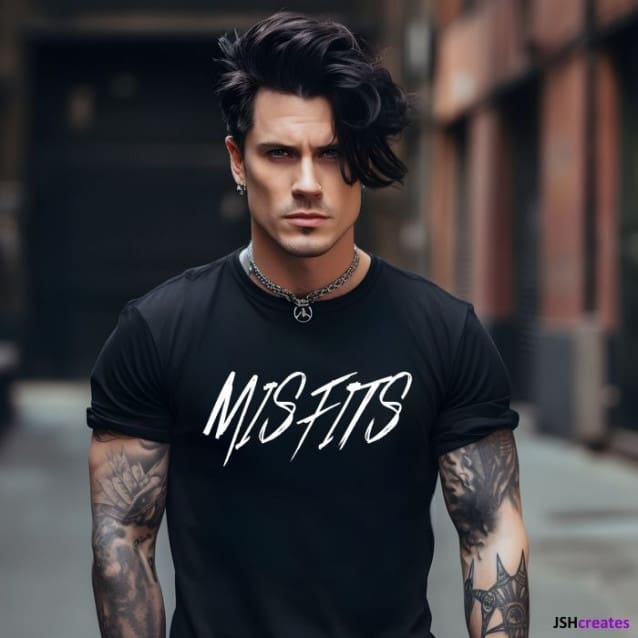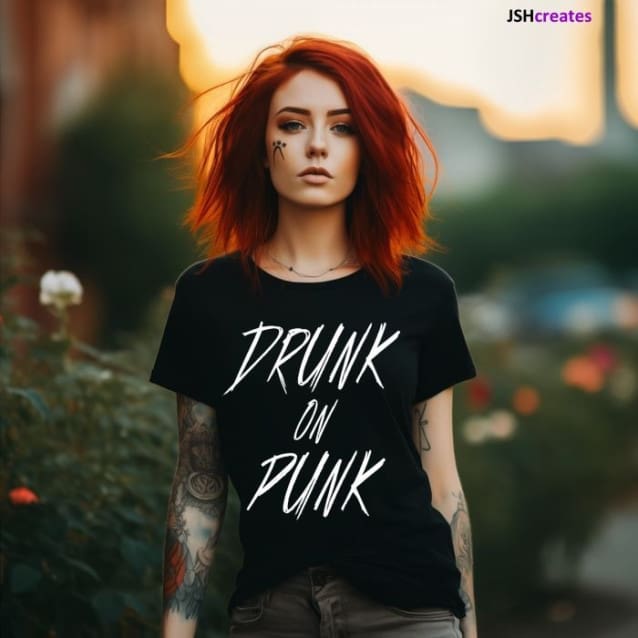
Last Days Font
Last Days Font is an intense and edgy handwritten grunge font. LastDays is perfect for: logos, branding, advertising, invitations, greeting cards, business cards, book covers, shirts, posters, social media and much more!